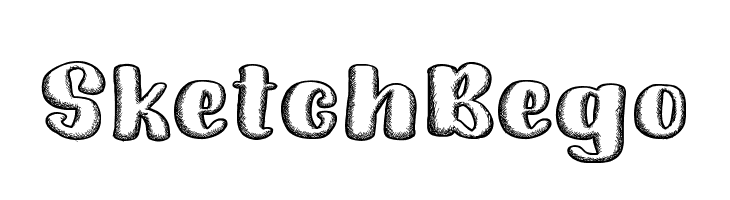
A playful, sketch-style font with bold, textured characters.
A sketch-style serif font with a hand-drawn, textured appearance.
A bold, sketch-like handwritten font with dynamic strokes and artistic flair.
A bold, sketch-like handwritten font with dynamic strokes.
A playful, hand-drawn font with a sketch-like, textured appearance.
A sketch-style font with hand-drawn, textured characters.
A playful, sketch-style font with bold outlines and diagonal hatching.
A playful, hand-drawn font with a sketch-like texture and bold outlines.